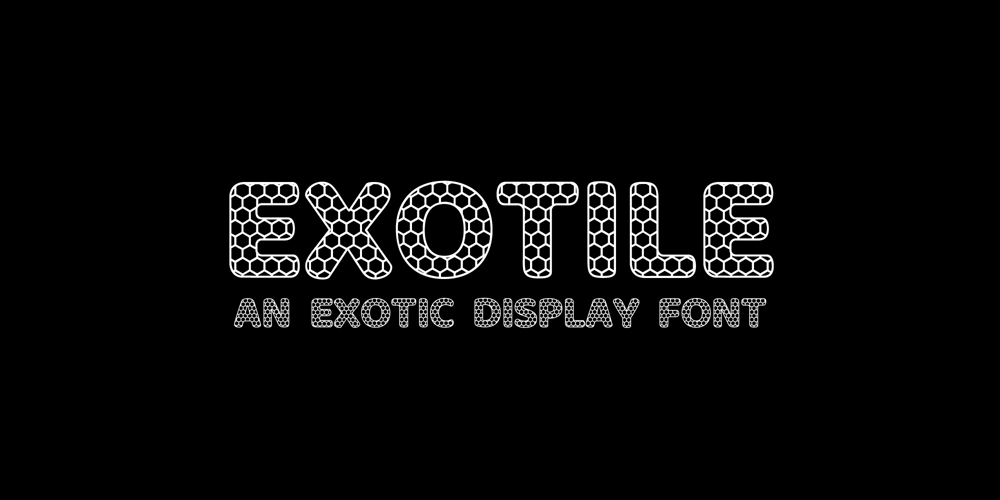
Exotile
Exotile font
Exotile Font Family was designed by Sylvain Zimmer and published by Sylvain Zimmer. Exotile contains 3 styles and family package options. Hexagons are all over the place in nature : from honeycombs to snowflakes and the tiling patterns seen on fruits. That form guided me in the creation of this new font. So Exotile is a font inspired by nature.This typeface is ideal for display purposes. It comes in 3 different weights and support for different languages.